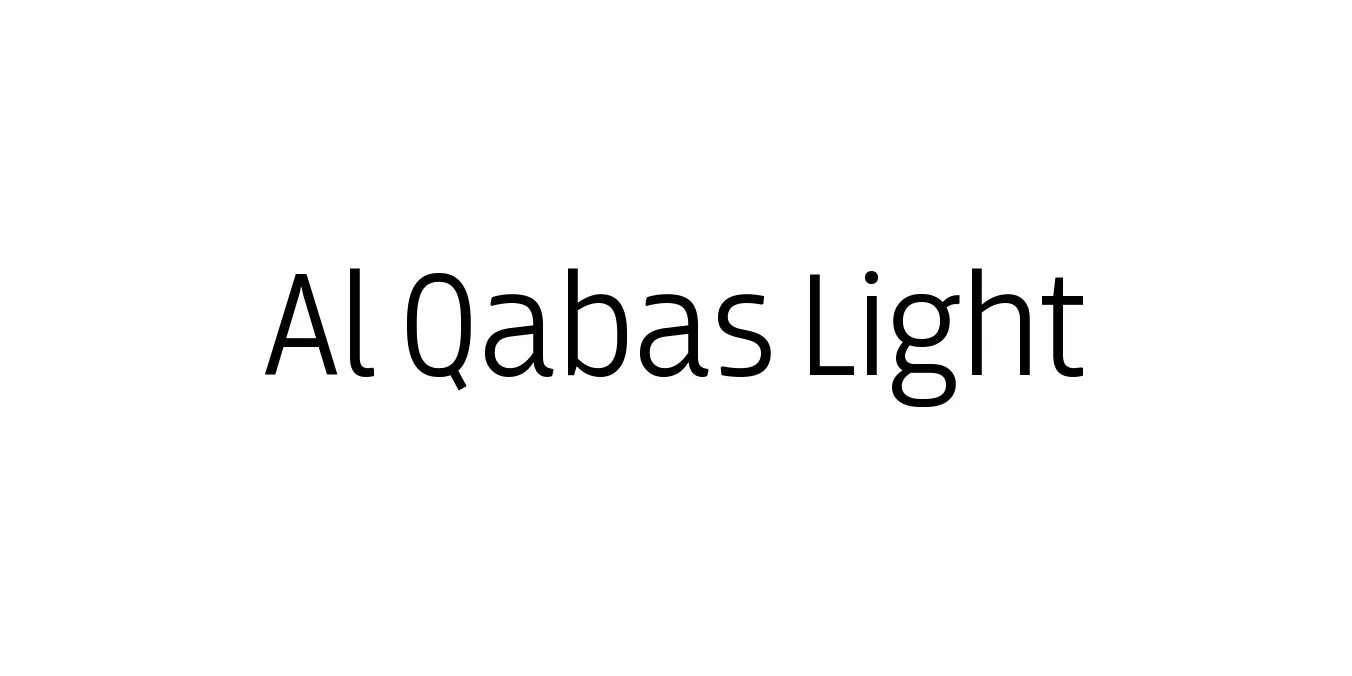
Al Qabas Light
Designed by Boutros Fonts
| Category | Arabic Sans Serif |
| Designer | Boutros Fonts |
Al Qabas Light is a sophisticated contemporary Arabic typeface meticulously crafted by the Boutros Fonts design team. Originally developed for the prominent Kuwaiti newspaper Al Qabas, this typeface was engineered to provide a clean, modern aesthetic that meets the rigorous demands of high-quality editorial production. The Light weight variant is particularly noted for its airy and elegant structure, offering a refined typographic voice that enhances readability without overwhelming the visual space.
The design of Al Qabas Light is deeply rooted in the Modern Kufi style, characterized by balanced geometric proportions and a harmonized baseline. It successfully integrates traditional calligraphic principles with the functional requirements of digital display and modern printing techniques. This makes the font an excellent choice for designers seeking a professional and culturally resonant Arabic font for corporate identities, high-end lifestyle magazines, and sophisticated mobile user interfaces.
Al Qabas Light Best Uses
Perfect for newspaper sub-headings and elegant magazine body text.
Ideal for creating a sophisticated and clean Arabic brand identity.
High legibility for mobile apps and modern website headers.
Adds a touch of luxury and minimalism to print and social media ads.